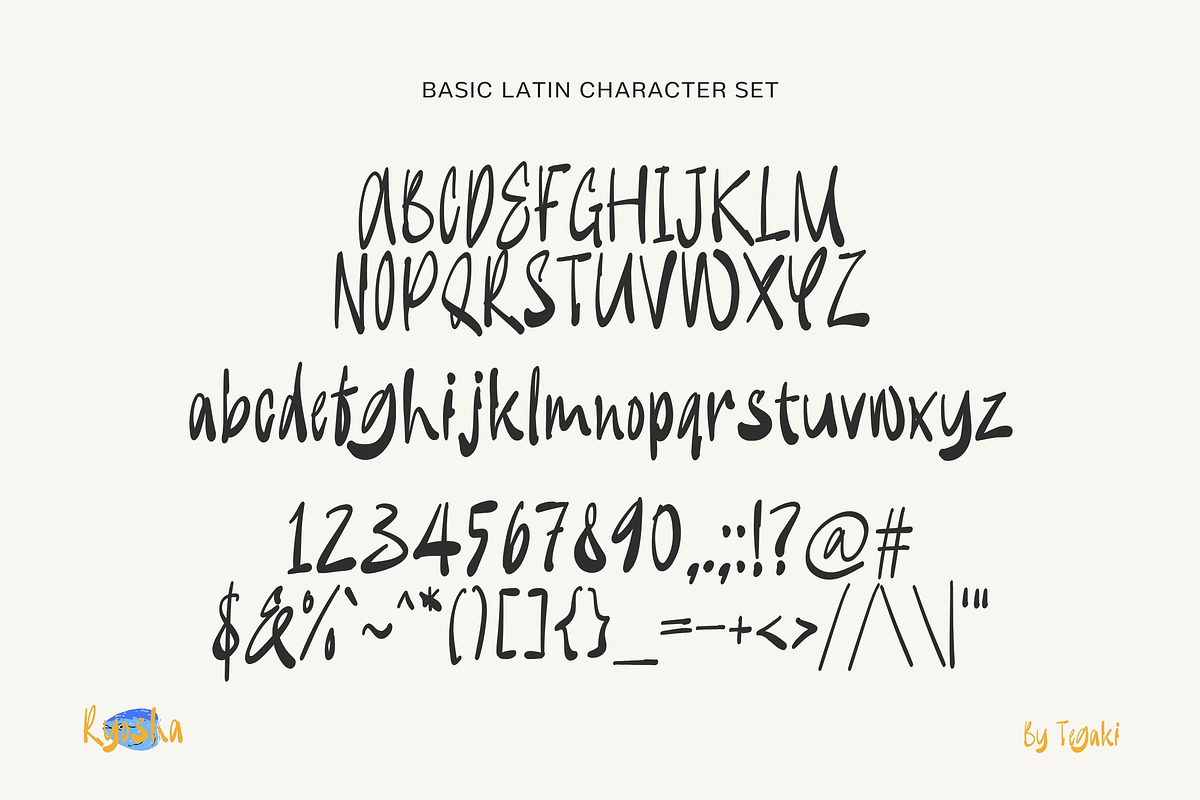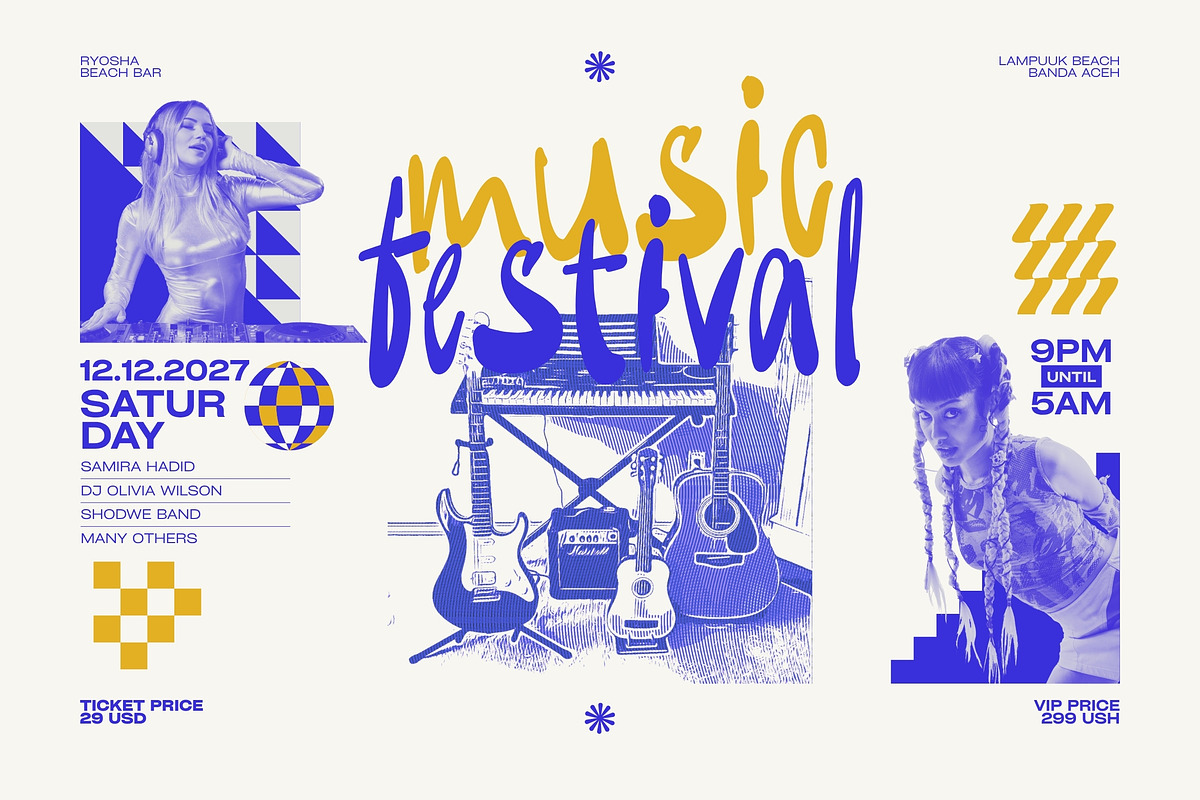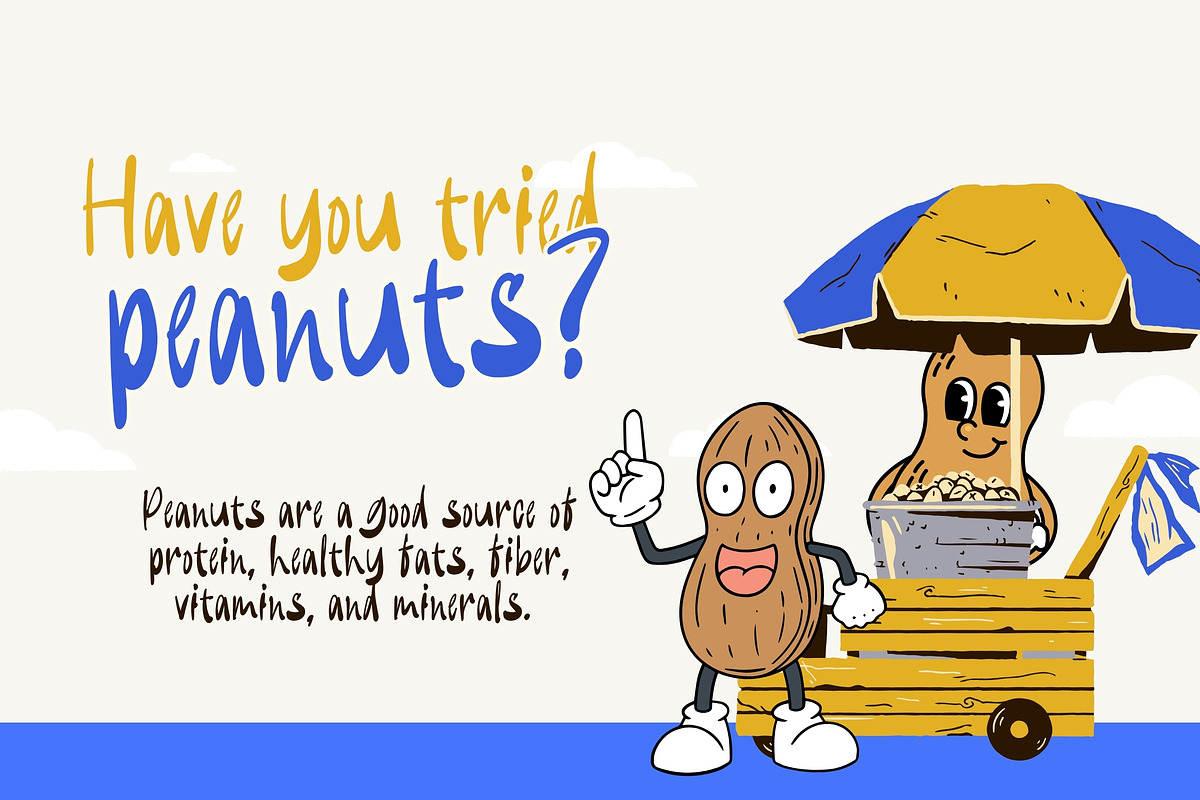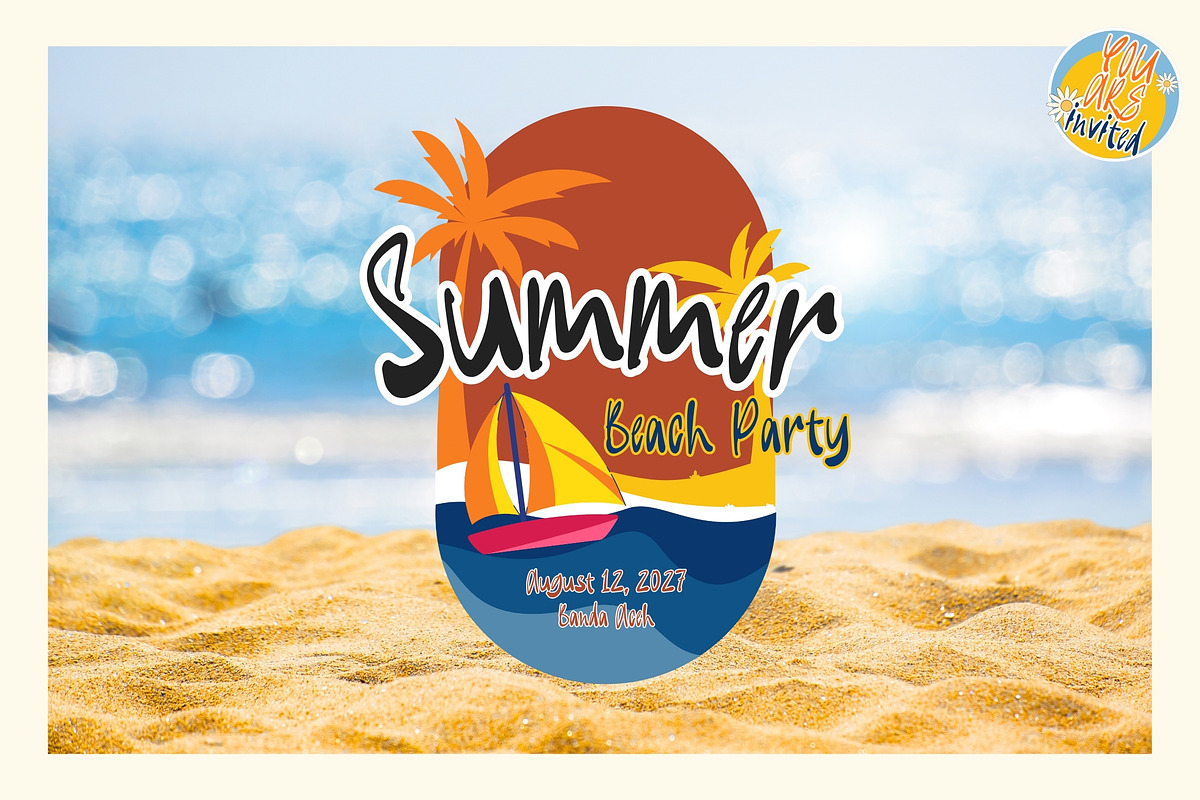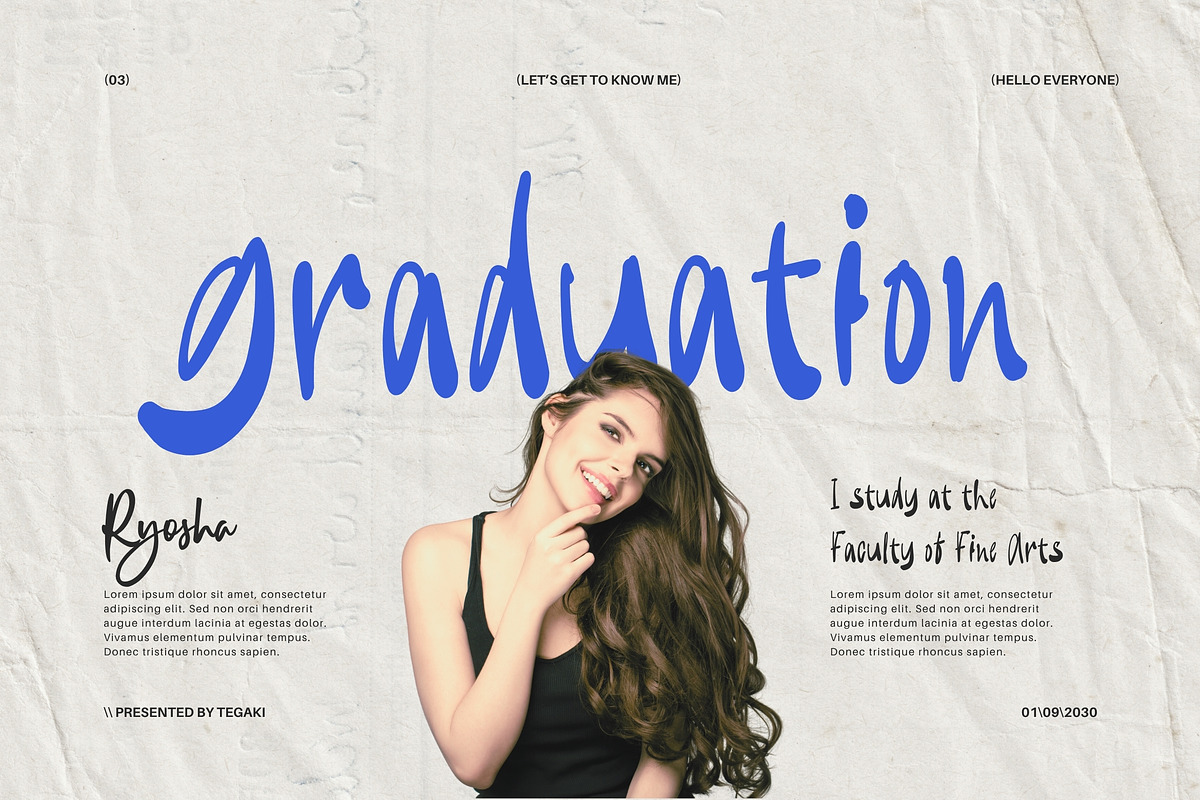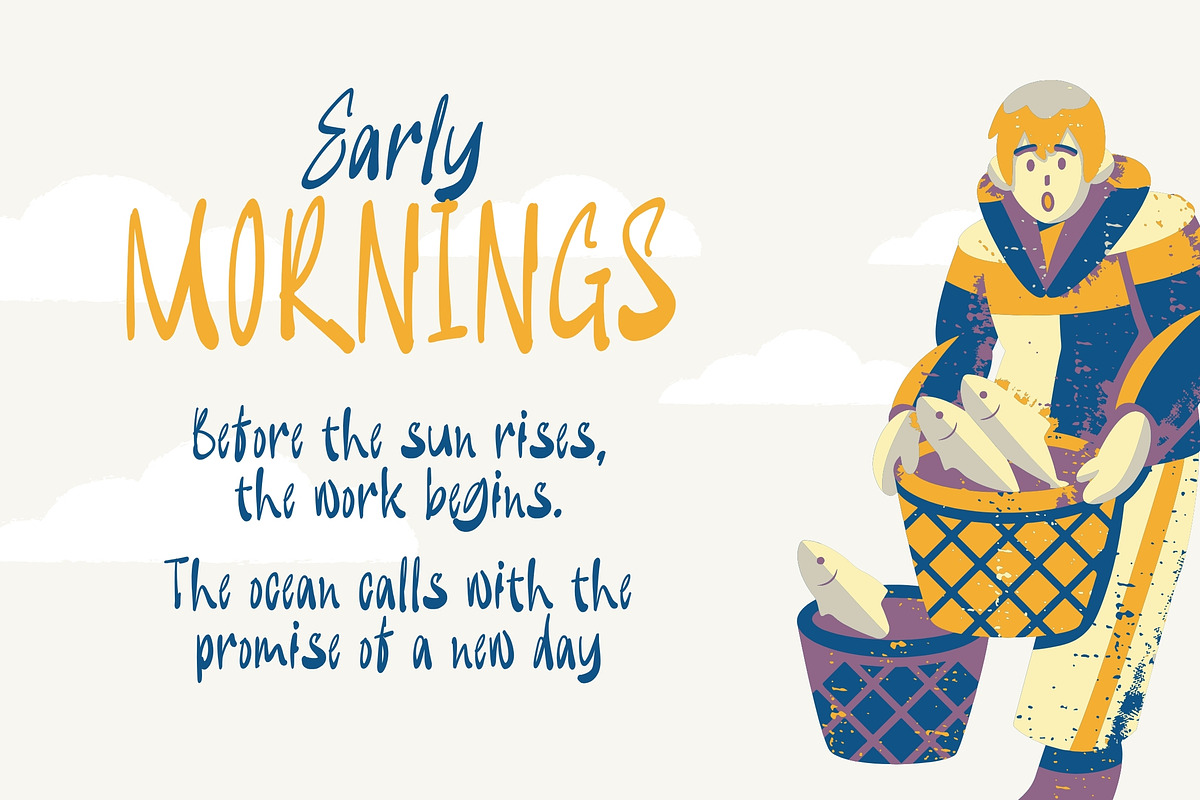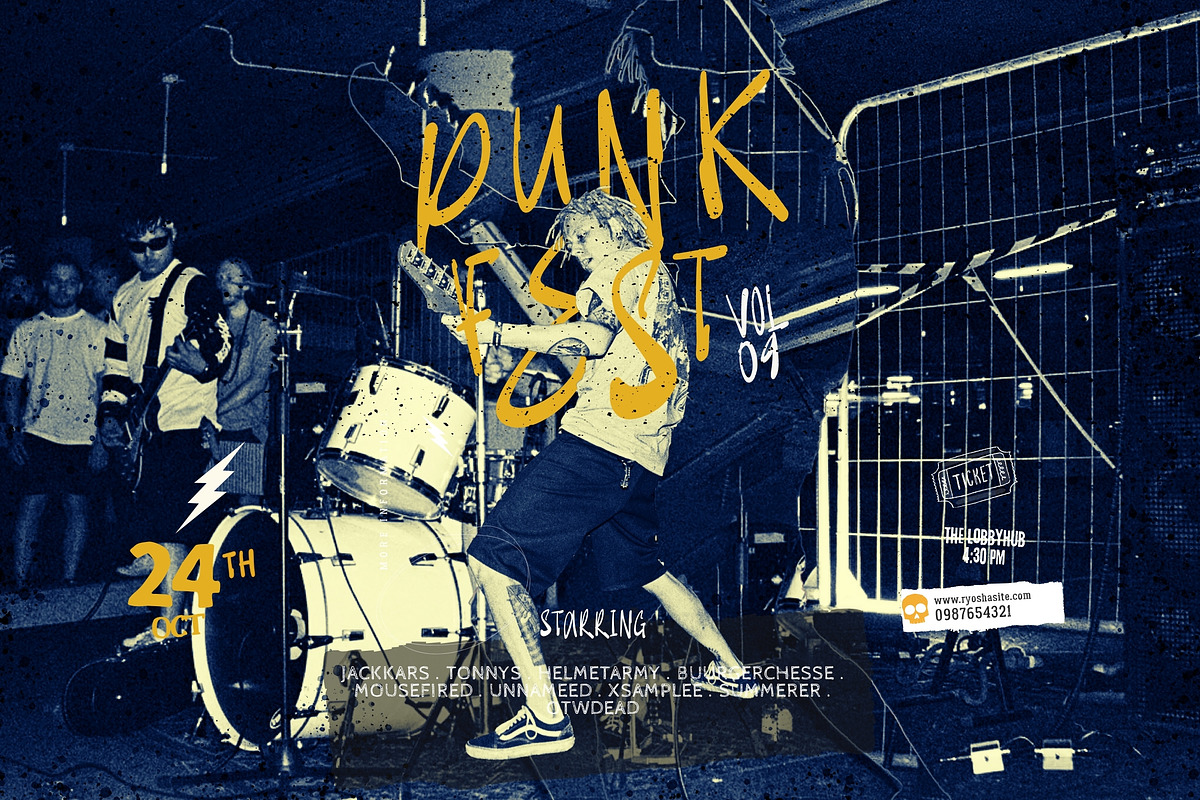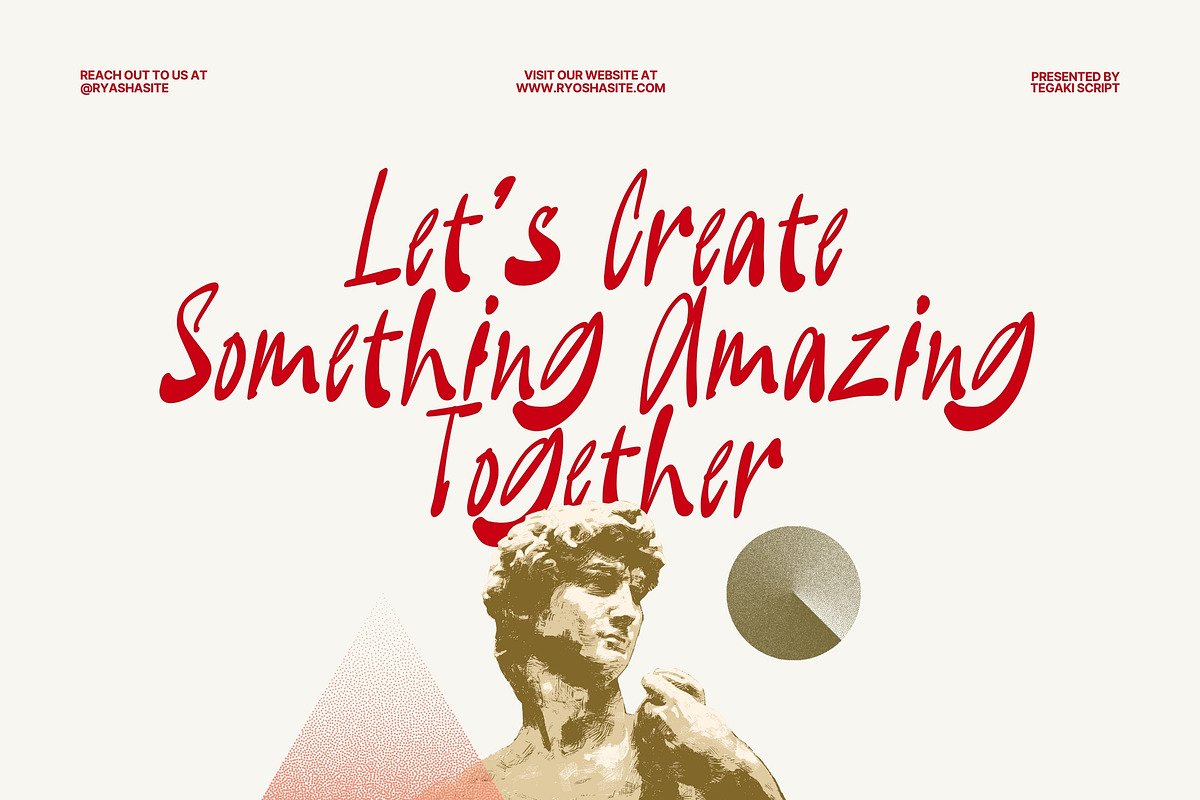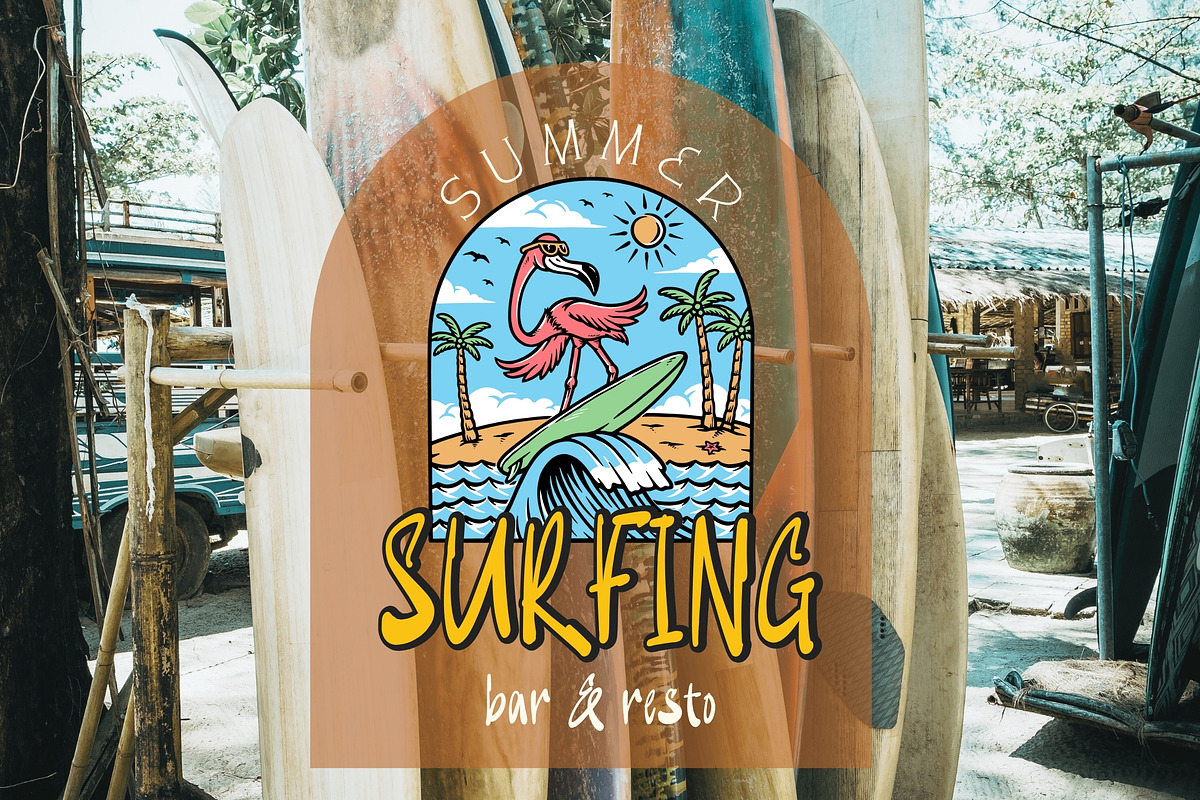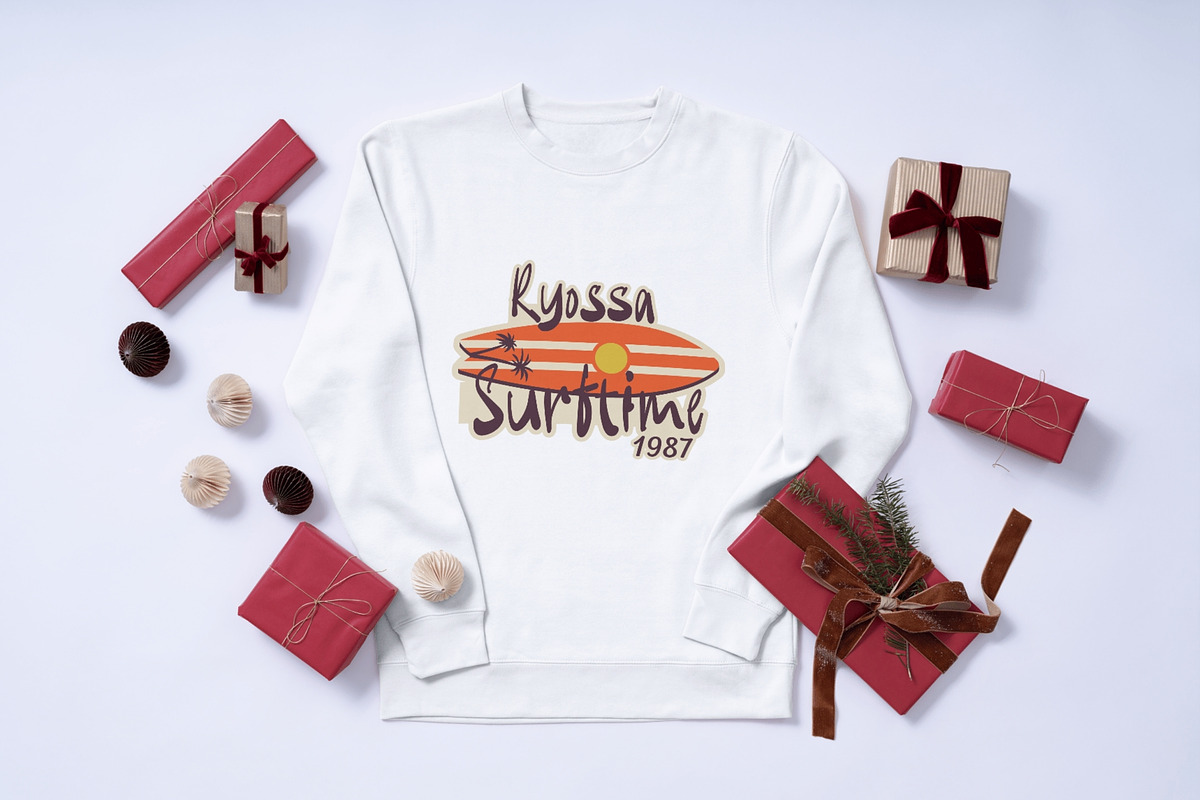
Ryosha
Introducing Ryosha
Designed by Tegaki Script
Ryosha – Modern Handwritten Brush Font
Ryosha is a modern handwritten brush font that blends bold energy with smooth, natural curves. Each letter flows with dynamic strokes, giving your design a personal and stylish touch.
Designed for creatives, Ryosha is ideal for logos, branding, quotes, posters, packaging, and social media. Comes with ligatures included, your text will look authentic and full of character.
Let Ryosha bring powerful expression to your work, it’s more than just a font, it’s a statement.